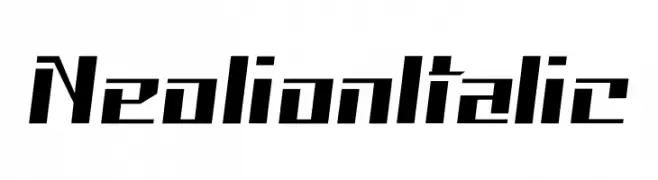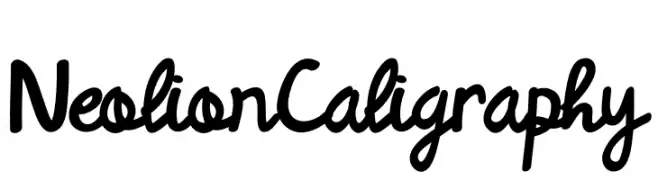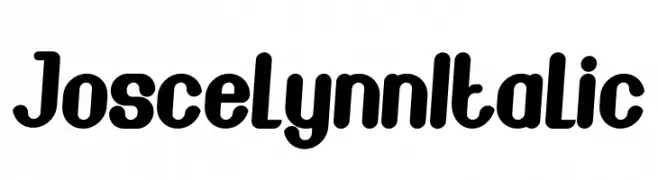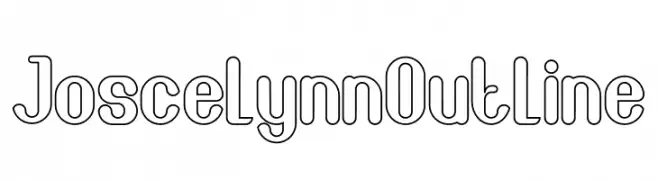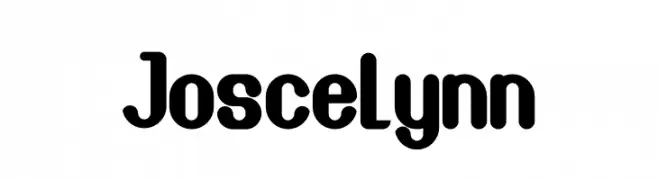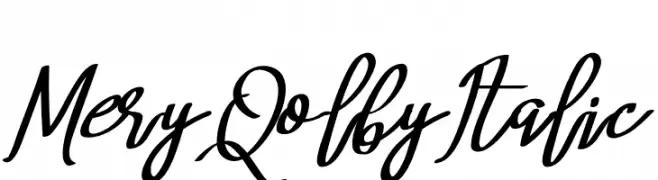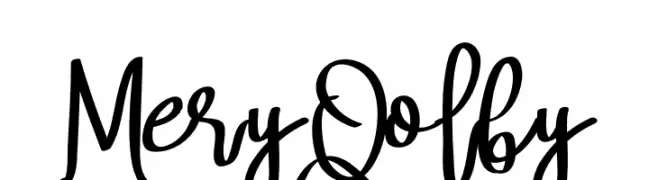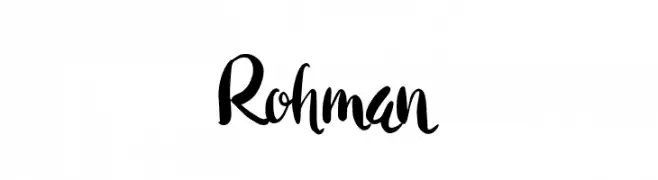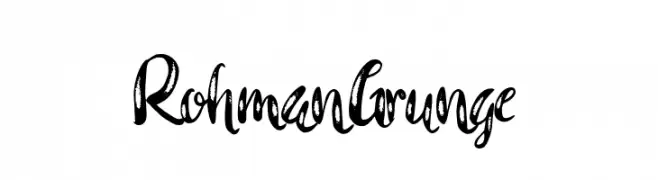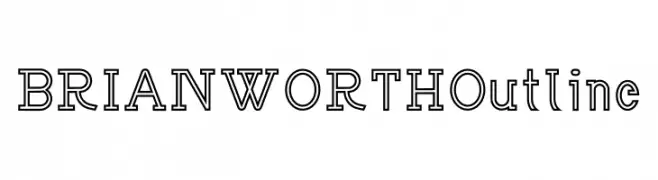
A bold, angular, and italicized font with a futuristic style.
A playful, flowing script font with a handwritten appearance.
A playful, bold font with rounded edges and a consistent stroke width.
A modern, playful outline font with consistent stroke width and balanced design.
A bold, rounded font with a playful and modern style.
An elegant, flowing script font with a natural handwritten style.
A lively, expressive handwritten font with fluid, dynamic strokes.
A bold, expressive script font with a handwritten style.
A bold, grunge-style font with a hand-painted, textured appearance.
An outline font with a bold, geometric style and double-line effect.